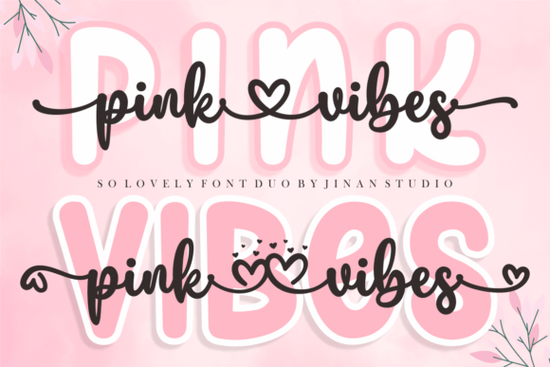
When you need a font that can handle both elegant script and clean sans serif in one package, a duo font like Pink Vibes Duo Font gives you that flexibility without juggling multiple typefaces. It pairs a delicate script with a matching sans serif, making it easier to keep your designs consistent and visually balanced.
What does a duo font actually give you that a single font doesn't?
A duo font saves you the guesswork of pairing two different fonts yourself. With Pink Vibes Duo Font, the script and sans serif are designed to work together from the start. The script adds a romantic, hand-lettered feel, while the sans serif keeps body text readable and clean. This is especially useful if you're designing greeting cards, wedding invitations, or social media graphics where you want both a decorative headline and a legible supporting text.
Because the font is PUA encoded, you can access alternate glyphs and swashes directly from your character map or software like Adobe Illustrator, Cricut Design Space, or Silhouette Studio. That means you're not stuck with just the basic letters you can add flourishes, tails, and decorative extras to customize your text.
What kind of projects does this font suit best?
Based on the style, Pink Vibes Duo Font leans romantic and delicate, so it works well for:
- Greeting cards and invitations – weddings, bridal showers, Valentine's Day, anniversaries
- Social media graphics – quotes, announcements, and branded posts
- Logos and branding – small businesses that want a soft, feminine identity
- Product labels and packaging – candles, skincare, homemade goods
- Planners and journals – both digital and printable layouts
The script works well for headlines and short phrases, while the sans serif can handle longer text like product descriptions or event details. If you've used other duo fonts before and liked the convenience, this one sits in the same practical category. For comparison, Sweet Cupcake Font offers a similar playful feel, while Soulmate Font leans more formal.
The script font includes standard uppercase and lowercase letters, numbers, punctuation, and multilingual support for basic Western languages. The sans serif part covers the same set, so you can mix and match without running into missing characters.
How does it compare to other script fonts in the same category?
If you normally use standalone script fonts, adding a duo font like Pink Vibes Duo Font changes how you approach layout. Instead of guessing which sans serif pairs well with your script, you already have one that's calibrated to match the stroke weight, angle, and overall feel. This cuts down on design time, especially if you're producing multiple pieces for a brand or event.
For other duo font options, you could also look at Front Picture Font if you want something with a bolder presence.
Practical tips when using Pink Vibes Duo Font
If you decide to try this font, here's a simple checklist to get started without overcomplicating things:
- Install both the script and sans serif versions separately so your software recognizes them as distinct styles.
- Use the script for short, impactful text and the sans serif for supporting details like dates, locations, or product features.
- Open the glyphs panel to browse swashes before you start typing some flourishes work better at the beginning or end of a word.
- Test the font at different sizes. The script shines at larger sizes where swashes remain visible, while the sans serif stays clean even at smaller sizes.